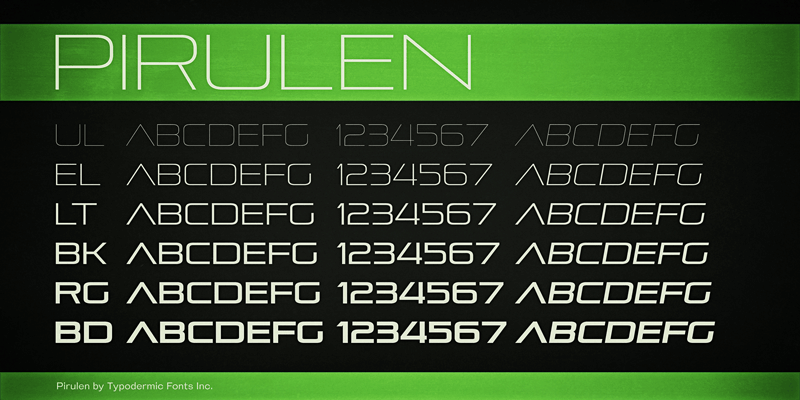
Pirulen is a wide, techno font from outer space. An alternative barred A is included for finicky clients. This font includes a license that allows free commercial use: sometimes referred to as a desktop license. This allows you to install the font on a computer and use it to create posters, web graphics, game graphics, t-shirts, videos, signs, logos and more. Read the license agreement for details. If you'd like to embed this font in an app, ebook, on the web or anything that's not covered by the desktop license agreement, visit the link below. You'll find distributors who offer different types of licenses or you can contact me for help. http://typodermicfonts.com/pirulen/ This free font is part of a larger font family. Check out the rest of the family through the link above. |